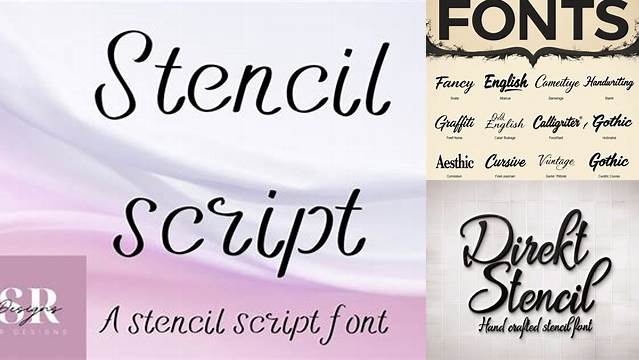
Free Cursive Stencil Fonts: Download And Design Guide
Free Cursive Stencil Fonts: Unleash Your Creative Flair!
Hey there, design enthusiasts! Ready to dive into the amazing world of free cursive stencil fonts? You're in for a treat! Cursive stencil fonts are like the cool, stylish cousins of regular fonts. They bring a touch of elegance, personality, and a vintage vibe to any project. Whether you're working on a DIY craft, designing a logo, creating invitations, or just want to spice up your social media posts, these fonts can make your work stand out. In this article, we'll explore the best free cursive stencil fonts available, how to use them effectively, and where to find them. So, grab your virtual pens and let's get started!
What Exactly Are Cursive Stencil Fonts?
Okay, so what exactly makes a font a "cursive stencil font"? Well, it's all in the name, really. A cursive stencil font combines two distinct styles: cursive and stencil. Cursive fonts, as you probably know, mimic handwriting, with letters typically flowing together and offering a flowing, elegant appearance. Stencil fonts, on the other hand, have "gaps" or "bridges" within the letterforms. These gaps are what make the font look like it's been stenciled, adding a unique and often vintage aesthetic.
When these two styles are combined, you get something really special. Cursive stencil fonts retain the graceful, flowing quality of cursive fonts but with the added interest of the stencil effect. This combination creates a font that is both visually striking and easy to read, making it versatile for a variety of applications. These fonts are perfect for adding a touch of sophistication and a bit of edgy flair to your designs. They can evoke a sense of nostalgia, making them especially popular for projects that aim to capture a vintage or handcrafted feel. Plus, they are generally very legible, even at smaller sizes, making them a great choice for both headlines and body text. Think of them as the perfect blend of classic elegance and modern design. Now, let's get into the fun part: where to find these awesome fonts and how to put them to good use!
Top Free Cursive Stencil Fonts to Download
- Font 1: "Blacksword Stencil" This font is a bold and stylish choice that brings a strong visual impact. With its thick strokes and pronounced stencil gaps, "Blacksword Stencil" makes a statement. It’s perfect for headlines, posters, and any design that needs to grab attention. Its design is inspired by classic stencil fonts, but with a modern twist. It gives off a classic, yet contemporary feel that is suitable for many different applications.
- Font 2: "Playlist Stencil" "Playlist Stencil" has a more playful and casual vibe, with slightly rounded letterforms that give it a friendly feel. It's great for invitations, social media graphics, and anything that requires a touch of fun. This font is versatile and adapts well to a variety of creative projects. It has a unique, modern look that is both eye-catching and easy to read. The design of this font is perfect for projects aimed at a younger audience or those looking to capture a light-hearted feel. If you're looking for a font that's both functional and fun, "Playlist Stencil" is a fantastic choice!
- Font 3: "Amsterdam Stencil" For a more elegant and sophisticated look, check out "Amsterdam Stencil." It features a more refined cursive style with subtle stencil elements, making it ideal for logos, branding, and formal designs. This font adds a touch of class and sophistication to any project. The carefully designed letterforms have a certain timeless beauty, making it suitable for elegant invitations, professional branding materials, or any project requiring a touch of class. Its elegant and refined style can help elevate a design, adding a layer of professionalism and attention to detail that is often difficult to achieve with other fonts. When a project requires a touch of class, "Amsterdam Stencil" is an excellent choice.
- Font 4: "Rallaway Stencil" "Rallaway Stencil" provides a clean and contemporary feel, with a balance between modern design and stencil elements. This font is suitable for both headlines and body text, giving you a great deal of flexibility. It has a modern and balanced appearance. The clean lines and clear stencil gaps ensure readability, even at smaller sizes. The versatility makes it great for everything from web design to print materials, helping ensure a cohesive design look. This is a practical and stylish font that works well in a variety of projects.
Where to Find Free Cursive Stencil Fonts
So, you're stoked and ready to find these fonts, right? Here are some awesome places to discover and download free cursive stencil fonts:
- Google Fonts: Google Fonts is a fantastic resource. They offer a wide variety of fonts, and while the selection of cursive stencil fonts might be limited, it's still worth checking out. All fonts are free for personal and commercial use. It's one of the best places to start your search. Plus, the website is super user-friendly, so you can easily browse and preview fonts.
- DaFont: DaFont is a well-known website that has a vast library of fonts. You can easily search for cursive stencil fonts, and it provides a good selection. Always double-check the license before using any font for commercial purposes. It has a vast library and a great search feature.
Final Thoughts: Get Creative!
So, there you have it! You're now equipped with the knowledge to find, download, and use free cursive stencil fonts to elevate your designs. Remember to have fun and experiment! Mix and match different fonts, play with colors, and see what works best for your project. Happy designing, and let your creativity flow! These fonts can truly make your creative projects stand out. There is a world of possibilities with these fonts. Start experimenting and have fun!